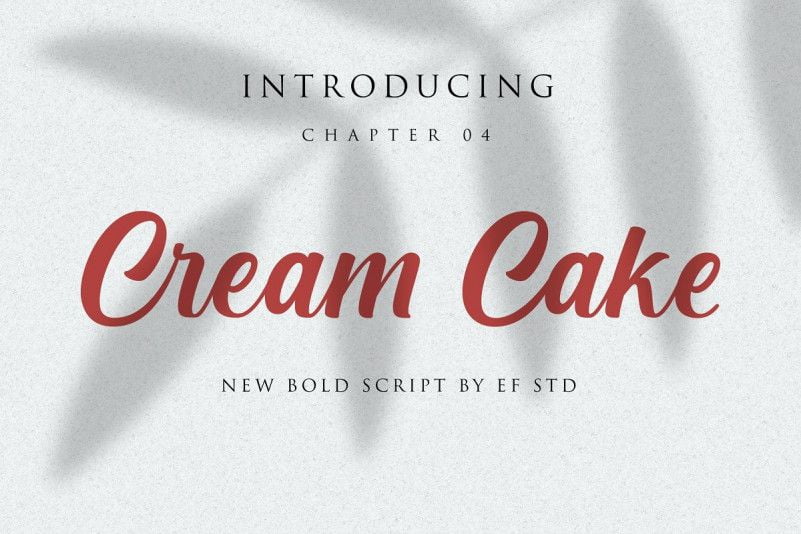
Cream Cake Font
Hi … Introducing the latest styles Cream Cake Script with the kind of modern hand scratches, I hope you are interested in this font, if you want to use for your work this font can be used easily and simply because there are a lot of features in it to contain a complete set of letters lower and uppercase letters, assorted punctuation, numbers, and multilingual support.